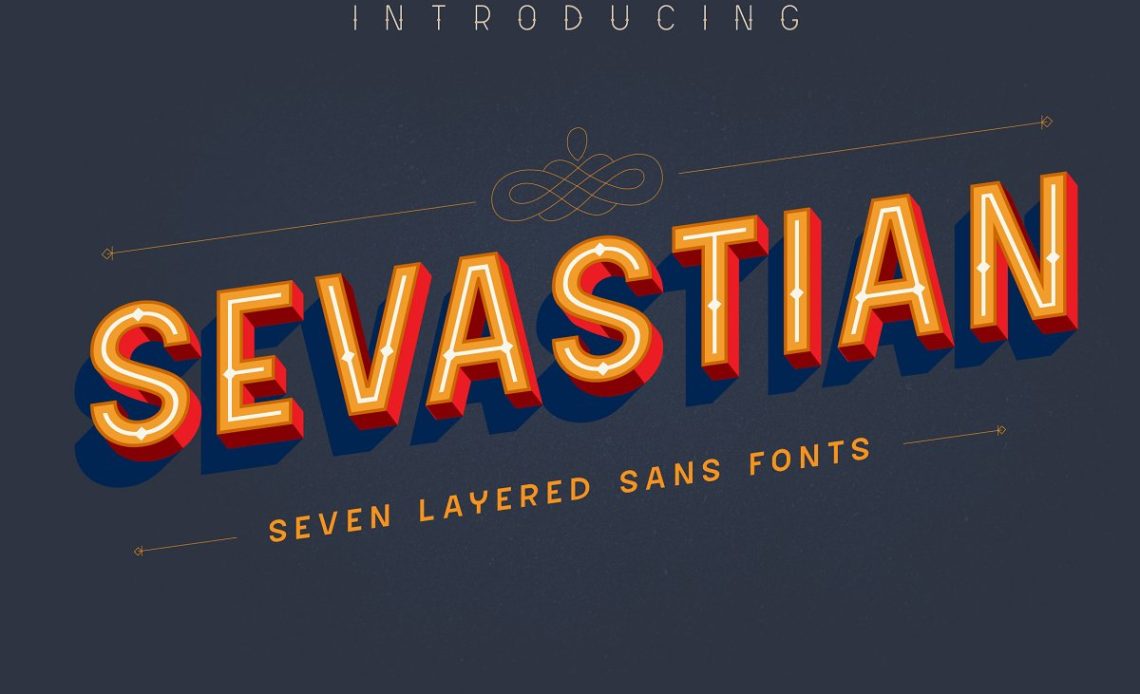
Introducing Sevastian Layered Typefaces, a revolutionary font collection that will transport you back to a time when artists and sign painters created stunning artwork using limited tools. Inspired by their creativity and ingenuity, Adam Fathoni Haris has crafted a type system that allows you to effortlessly create 3D lettering without relying on special effects.
With Sevastian, you have the power to bring your typography to life by adding depth and dimension. This collection features seven layered fonts that can be combined in endless ways to achieve the perfect look. Each font is meticulously designed to ensure that the layers align perfectly, making it easy for you to generate stunning artwork.
But that's not all - Sevastian also offers incredible versatility. You can experiment with different colors, styles, and combinations to create truly unique designs. The possibilities are endless, and the only limit is your imagination.
Not only is Sevastian visually stunning, but it is also incredibly user-friendly. The font naming system makes it a breeze to find the perfect layer for your design. With numbers indicating the order of the layers, you can easily determine which layer should be on top and which should be at the bottom. It's intuitive and saves you precious time.
Sevastian is not just limited to English - it supports multiple languages, opening up a world of possibilities for designers and artists across the globe. To see the full character set available, check out the link provided.